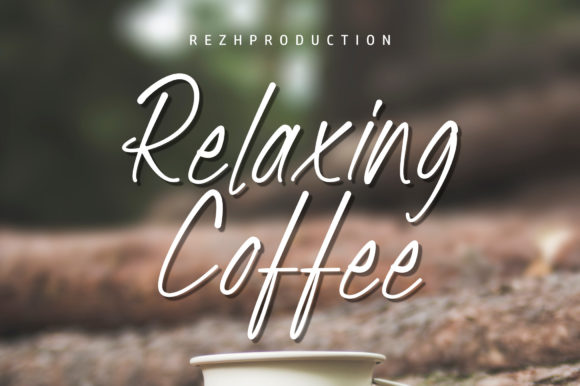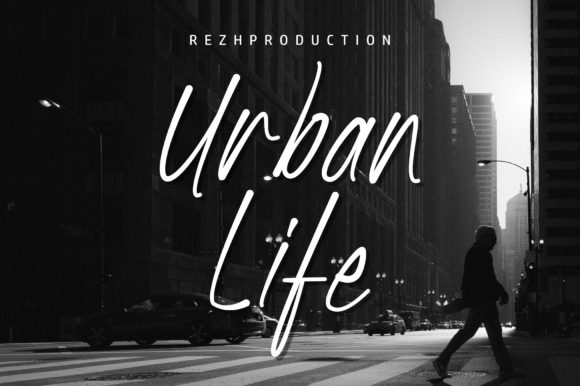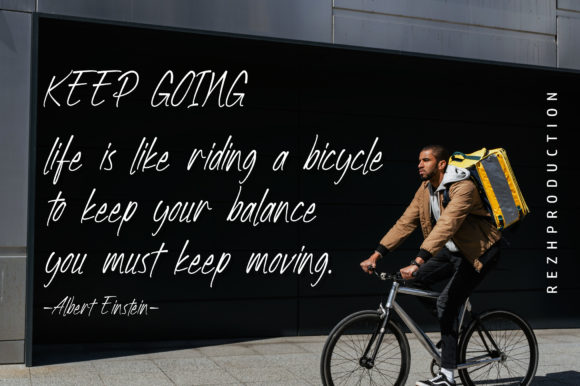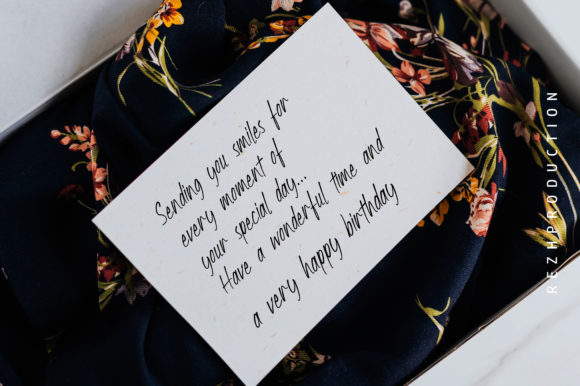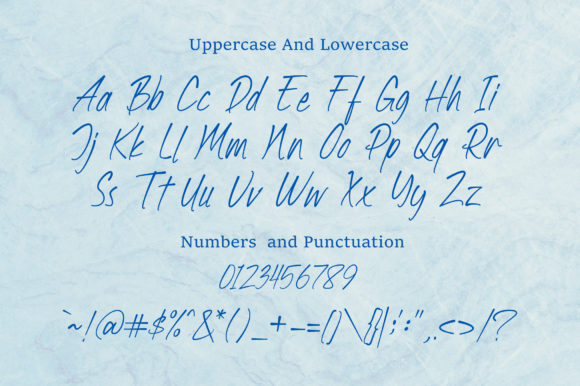
Introduction to Fishingrod Font Font
Fonts play a crucial role in design, and the Fishingrod Font font is a typeface that brings both character and versatility to any project. Whether you’re working on a branding project, a website, or a print design, the Fishingrod Font font offers a unique style that can elevate your work.
Fishingrod is a beautiful light handwritten font with a unique feel and a stunning impact.
It will add a luxury spark to any design project that you wish to create .
Key Features of Fishingrod Font Font
Why Choose Fishingrod Font Font?
The Fishingrod Font font is more than just a typeface – it’s a design tool that helps you communicate your message with style and clarity. Its unique character set and versatile design make it suitable for a wide range of applications, from elegant invitations to bold headlines.
With its carefully crafted letterforms and balanced proportions, the Fishingrod Font font ensures readability and visual appeal across all mediums.
What makes Fishingrod Font font special?
The Fishingrod Font font stands out with its unique design, exceptional readability, and versatility across various design applications.